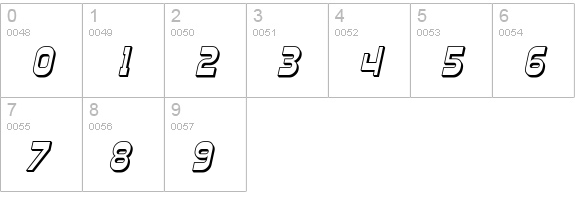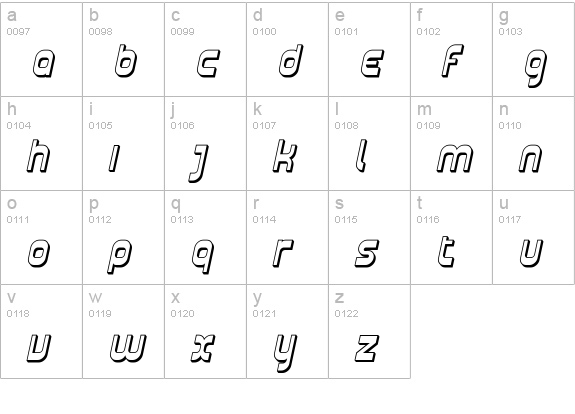
Plasmatica Shaded Italic is a distinctive, italic variant in the Plasmatica typeface family \xE2\x80\x94 well suited to design and typography projects.
Plasmatica Shaded Italic font is a stunning and versatile typeface that effortlessly combines elegance with a touch of modernity. Its sleek and curvaceous letterforms are delicately shaded, creating a captivating visual effect that adds depth and dimension to any design project. This font exudes a sense of sophistication and sophistication, making it a perfect choice for a wide range of applications. Whether you're designing a logo, creating a website, or working on a branding project, Plasmatica Shaded Italic font will elevate your design to new heights. The italicized style of this font adds a dynamic and graceful touch, bringing a sense of movement and fluidity to your typography. It effortlessly captures attention and creates a sense of intrigue, making it an excellent choice for headlines, titles, and emphasis. Designed with utmost attention to detail, Plasmatica Shaded Italic font offers excellent legibility and readability even at smaller sizes. Each letter is meticulously crafted, ensuring a seamless and harmonious flow of text. Its versatility allows it to shine in both print and digital media, bringing a touch of elegance to any medium. And the best part? Plasmatica Shaded Italic font is available for free download at FontsMarket.com. This means that you can enjoy the beauty and functionality of this incredible typeface without any cost. It's a fantastic opportunity to enhance your design arsenal with a high-quality font that will make a lasting impression. So, why wait? Download Plasmatica Shaded Italic font today and elevate your designs with its timeless beauty and contemporary flair. Let this font be your secret weapon for creating stunning visuals that leave a lasting impact.